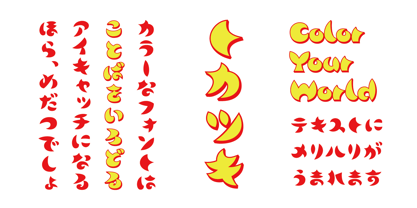
ML Tokatsuki Kana
This typeface is characterized by round, curved strokes with sharp cusps. How about using it for logotypes and eye-catching headlines? Its color font version is fun and joyful and it pops with a 3D effect from the red and yellow colors.